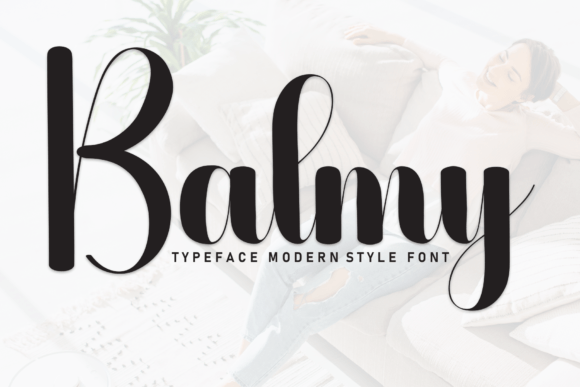
Unleash the Charm of Balmy Font: A Handcrafted Script for Mesmerizing Designs
Step into a world of creativity with Balmy Font, a meticulously designed handwritten font that exudes warmth and elegance. Inspired by the beauty of handwritten notes and the charm of personal journals, Balmy brings a touch of authenticity and individuality to your digital and print projects.
Immerse yourself in a symphony of carefully crafted characters, each meticulously shaped to evoke a sense of friendliness and joy. Balmy's graceful curves and playful strokes create a visual dance that draws the eye and captures the heart. Whether you're designing logos, invitations, posters, or social media graphics, Balmy adds a unique and unforgettable touch that leaves a lasting impression.
Unlock Endless Possibilities with Balmy Font's Versatility
Balmy Font is more than just a font; it's a versatile tool that empowers you to bring your creative visions to life. With its extensive character set and PUA encoding, Balmy offers a wide range of possibilities, allowing you to access special characters and symbols without the need for additional software. Unleash your imagination and explore endless design opportunities, transforming your projects into captivating masterpieces.
Create Unforgettable Logos that Speak Volumes
In the world of branding, a logo is the cornerstone of a company's identity. With Balmy Font, you can craft logos that radiate personality and leave an indelible mark on your audience's minds. Its friendly and inviting style makes it the perfect choice for businesses and organizations looking to connect with their customers on a personal level. Create logos that evoke trust, warmth, and a sense of familiarity, setting your brand apart from the competition.
Design Invitations that Sparkle with Charm
Spread joy and anticipation with Balmy Font's enchanting invitations. Whether you're planning a wedding, a birthday party, or a corporate event, Balmy adds a touch of elegance and sophistication that sets the tone for a memorable occasion. Its flowing lines and playful characters create a sense of excitement and anticipation, inviting guests to immerse themselves in a world of celebration.
Craft Posters that Demand Attention
Make your posters stand out from the crowd with Balmy Font's captivating presence. Its bold and expressive characters demand attention, drawing the eye to your messages and captivating your audience. Create posters that command attention, inspire action, and leave a lasting impact on viewers. Whether you're promoting a product launch, a special event, or a cause close to your heart, Balmy Font ensures your message is heard loud and clear.
Elevate Your Social Media Presence with Unique Graphics
In the ever-evolving world of social media, captivating visuals are key to capturing attention and engaging your audience. With Balmy Font, you can create stunning social media graphics that reflect your brand's unique personality and resonate with your followers. Its friendly and playful style adds a touch of warmth and approachability, inviting viewers to connect with your content on a deeper level. Create graphics that spark conversations, boost engagement, and leave a lasting impression on your social media presence.